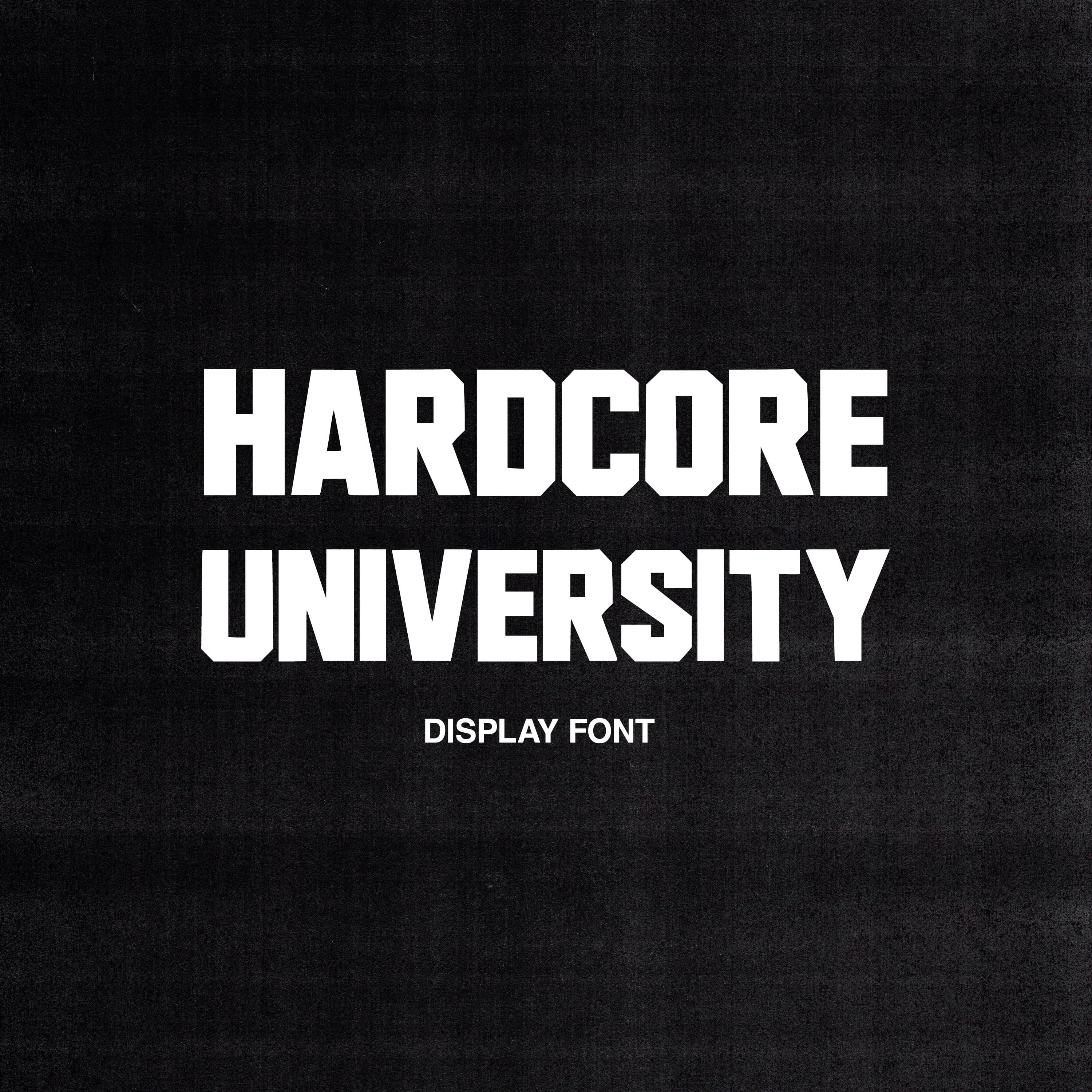
<p>Bold, loud, unapologetic.<br>HARDC0RE UNIVERSITY is a heavy varsity-inspired typeface. Perfect for merch, posters, cover art, or anything that needs to hit hard from the first glance.</p> <ul> <li>All caps + numbers</li> <li>One weight, full impact</li> <li>Formats: .OTF / .TTF</li> <li>Works great in print and digital design</li> </ul>